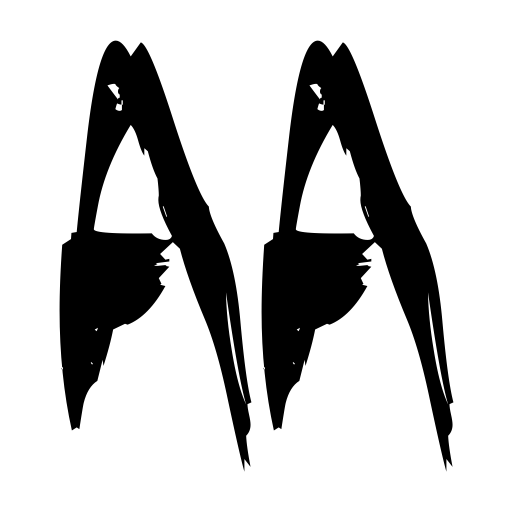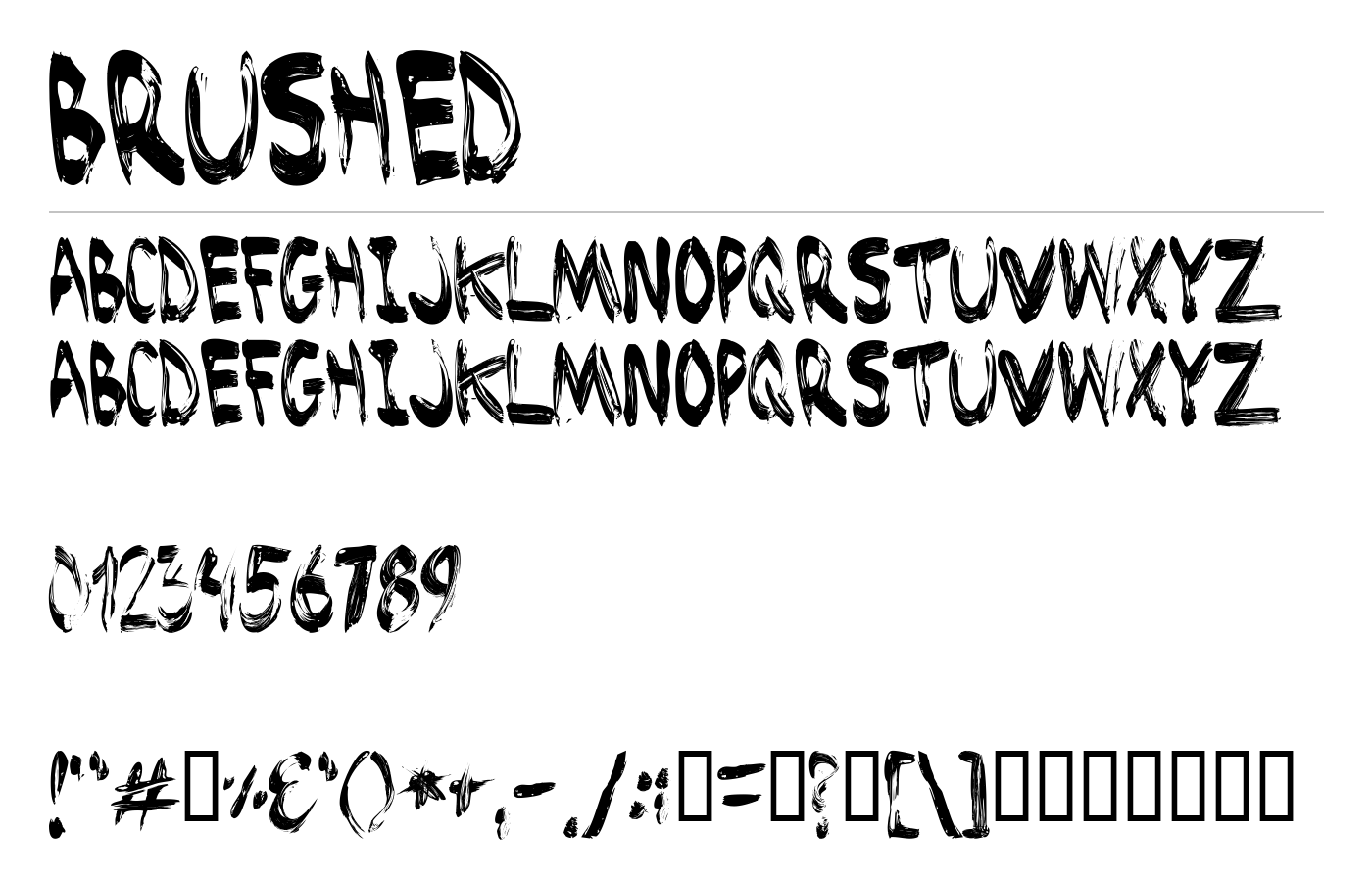
Brushed Font is a bold and expressive handwritten typeface that mimics the dynamic, textured strokes of a paintbrush. Its irregular shapes and high contrast between thick and thin lines give it an energetic, artistic feel, making it ideal for creative projects, posters, and branding that seeks a raw, personal touch. This font works well in display settings where its unique personality can shine and add a sense of individuality and movement.
Brushed Font
About Brushed Font